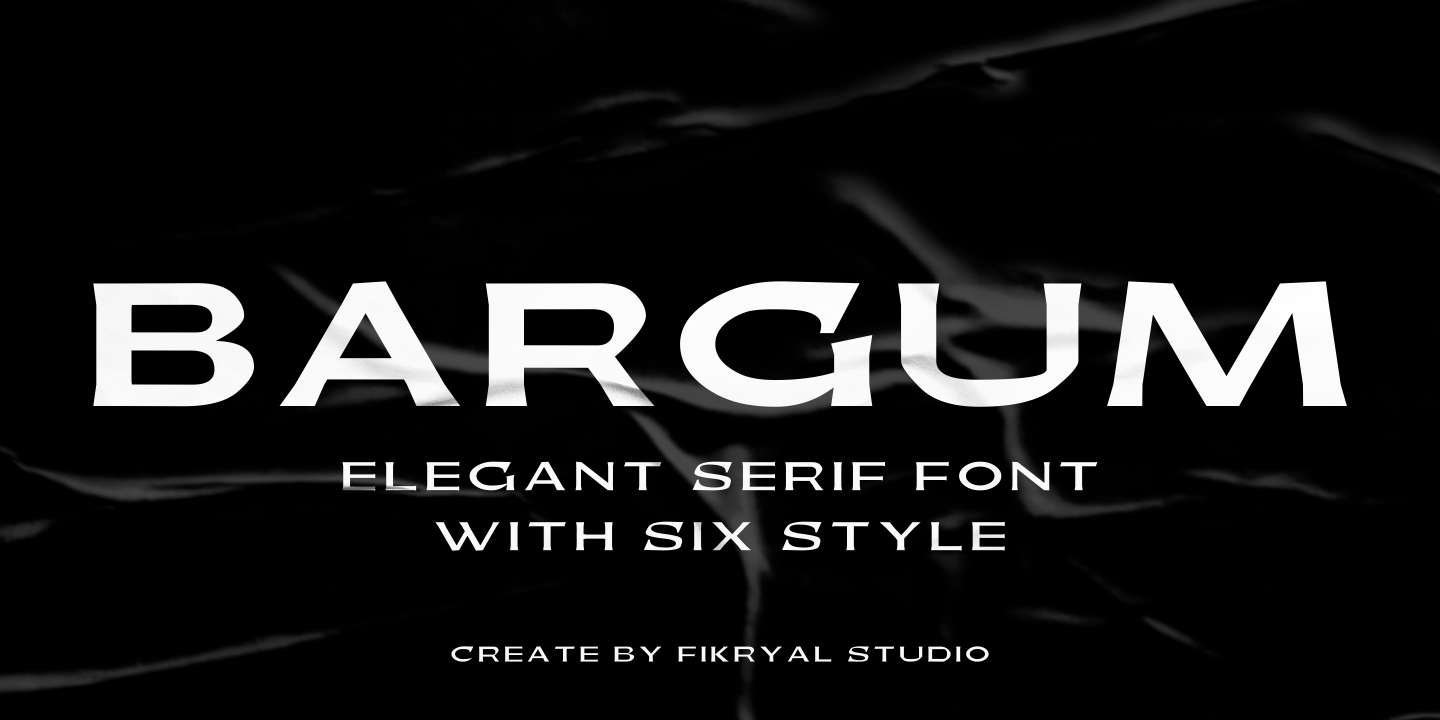
The Bargum Font is incredibly versatile, making it an excellent choice for a wide range of design projects that aim for a classic, robust, and effortlessly legible aesthetic. Imagine it gracing traditional newspaper headlines, providing a clear and authoritative voice for historical documents, or defining the solid branding for established institutions. It's also perfect for crafting distinguished logos that convey heritage and trust, designing impactful titles for academic publications, or enhancing the visual appeal of professional reports and serious editorial content. Its often strong serifs, balanced proportions, and timeless appeal make it ideal for anything that needs to communicate reliability, tradition, and enduring quality, from official certificates to museum signage.
What makes the Bargum Font so exciting is its ability to seamlessly combine a sense of historical gravitas with unwavering readability. It's not just a typeface; it’s a pillar of traditional typography that offers both unwavering performance and an elegant presence. Its meticulously crafted letterforms, often featuring generous open counters and a harmonious rhythm, contribute to superb legibility, making it comfortable for both display and extended body text. In a world of rapidly changing design trends, this font stands out by offering a timeless charm, ensuring your message is not only seen but truly absorbed with a sense of clarity and long-lasting relevance.
The Bargum Font family typically includes a comprehensive range of weights and styles to provide maximum flexibility for designers. While specific variations can differ, you can often expect to find regular, bold, and possibly even light or italicized versions, all crafted to maintain its core sturdy and traditional aesthetic. This essential array of options allows for sophisticated typographic hierarchies and ensures the font can adapt seamlessly to various design needs, from subtle informational text to prominent subheadings, offering unparalleled versatility for both print and digital applications.
For those looking to infuse their designs with a strong sense of classic elegance, clear readability, and professional authority, the Bargum Font Free Download is an invaluable resource. This robust typeface, with its timeless appeal and exceptional versatility, will undoubtedly elevate your creative projects and ensure your message is delivered with impactful clarity.